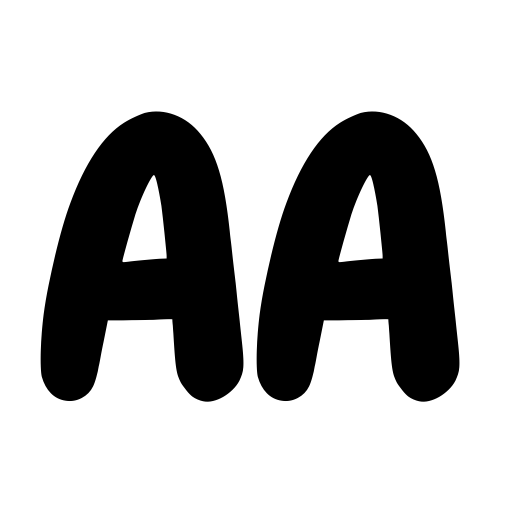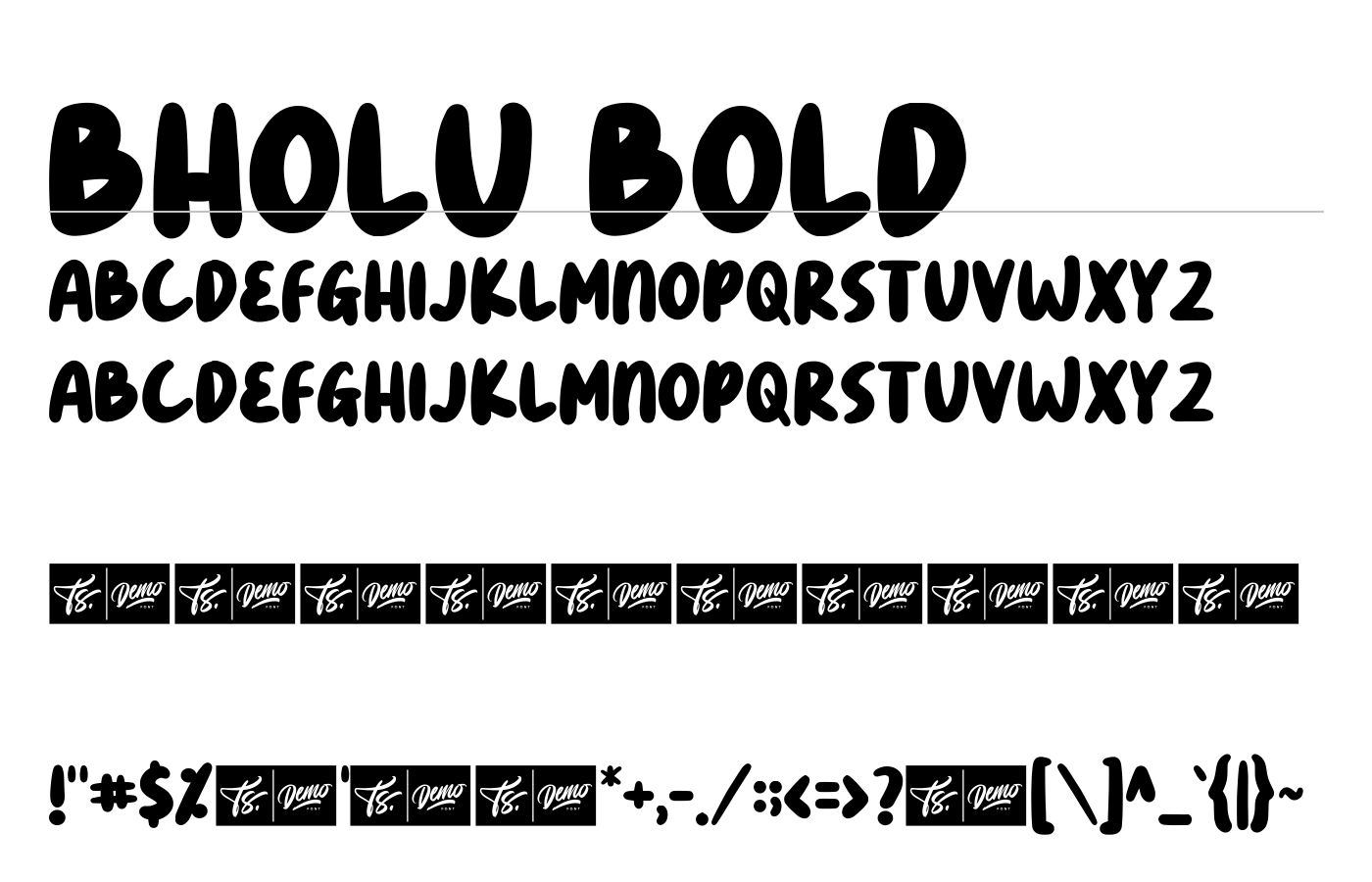
Bholu Bold is a playful and bold sans serif font with a hand-drawn feel, featuring rounded, chunky letterforms that convey a friendly and casual tone. Its high weight and soft, organic shapes make it perfect for attention-grabbing headlines, logos, and creative projects that aim for a fun, approachable vibe. This font works well in designs for children’s products, informal branding, and any context where warmth and personality are key.
Bholu Bold Font
About Bholu Bold Font
| Font family | Bholu Bold Font |
| Designer | Fahrul Arjianto |